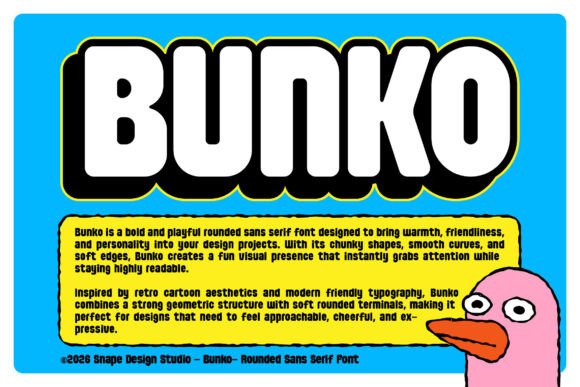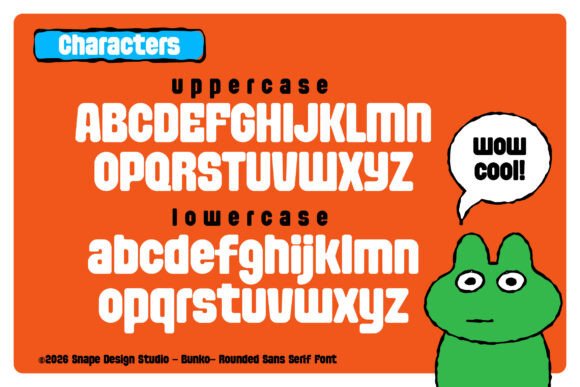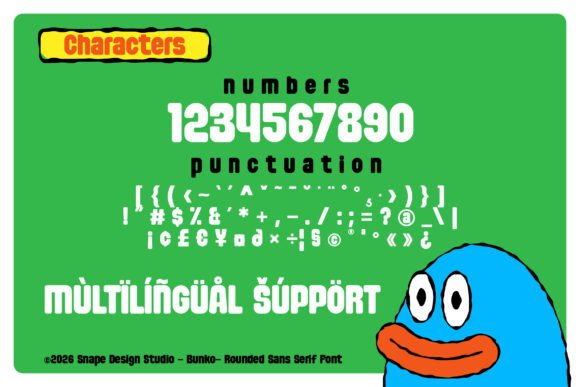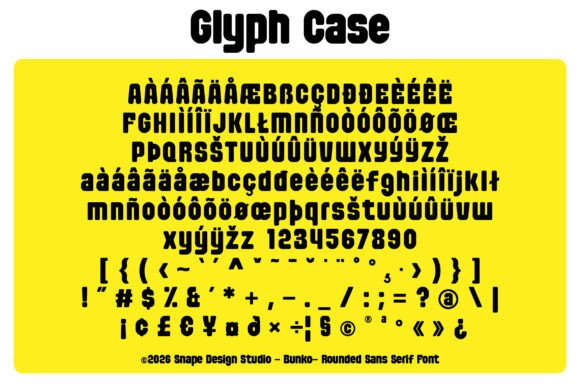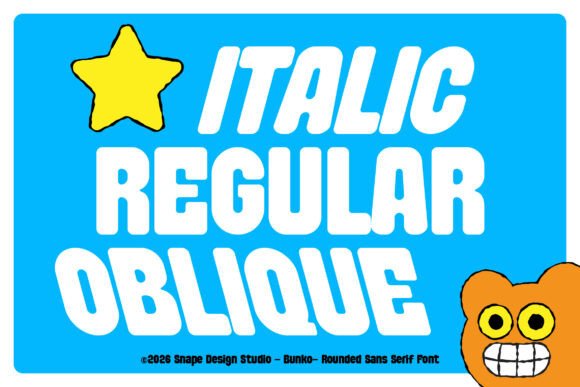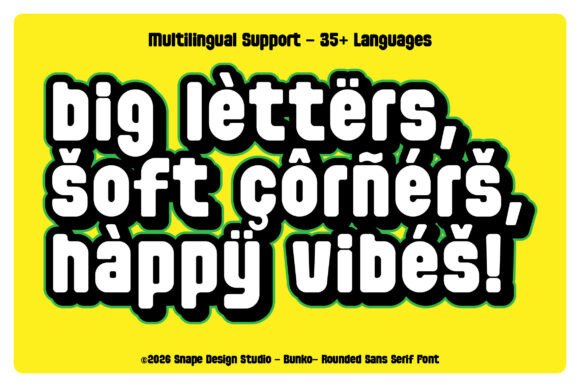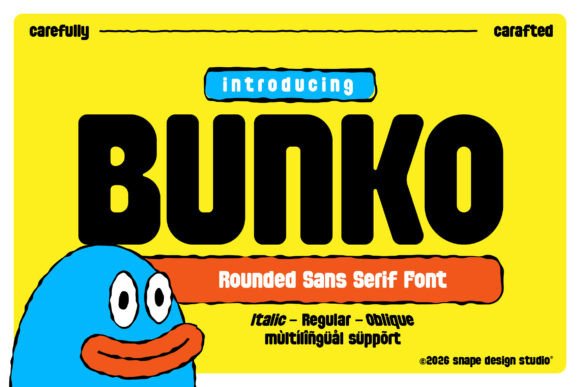
Bunko Font: The Ultimate Bold and Playful Rounded Sans Serif Font
Are you looking for a font that can bring warmth, friendliness, and personality into your design projects? Look no further than Bunko, a bold and playful rounded sans serif font designed to make your designs stand out. With its chunky shapes, smooth curves, and soft edges, Bunko creates a fun visual presence that instantly grabs attention while staying highly readable.
Inspiration from Retro Cartoon Aesthetics and Modern Friendly Typography
Bunko’s design is inspired by retro cartoon aesthetics and modern friendly typography. The font combines a strong geometric structure with soft rounded terminals, making it perfect for designs that need to feel approachable, cheerful, and expressive. Whether you’re creating eye-catching headlines or playful branding, Bunko delivers a bold yet charming typographic voice.
Why Choose Bunko?
Bunko is designed for designers who want a rounded sans serif display font that feels lively and memorable. The thick letterforms provide strong visual impact, while the rounded shapes give it a soft and welcoming personality. Here are some reasons why you should choose Bunko for your design projects:
• Unique and Playful Design: Bunko’s chunky shapes and smooth curves create a fun and playful visual presence that sets it apart from other fonts.
• Highly Readable: Despite its bold design, Bunko remains highly readable, making it perfect for use in headlines, titles, and other display text.
• Versatile: Bunko works beautifully for a wide range of design projects, from playful branding and advertising to packaging and web design.
• Easy to Use: Bunko is a straightforward font to use, and its simple yet effective design makes it easy to pair with other fonts.
Perfect For
Bunko works great for a variety of design projects, including:
• Playful Branding: Bunko’s bold and playful design makes it perfect for creating fun and memorable brand identities.
• Eye-Catching Headlines: Bunko’s chunky shapes and smooth curves make it ideal for creating attention-grabbing headlines and titles.
• Advertising and Marketing: Bunko’s unique design and high readability make it perfect for use in advertising and marketing materials.
• Packaging Design: Bunko’s playful and fun design makes it great for use in packaging design, particularly for products aimed at a younger audience.
• Web Design: Bunko works beautifully for web design, particularly for websites that require a fun and playful typographic style.
Design Elements
Bunko’s design elements make it a standout font. Here are some of the key features that make Bunko so unique:
• Chunky Shapes: Bunko’s chunky shapes give it a bold and playful appearance.
• Smooth Curves: Bunko’s smooth curves add a touch of elegance and sophistication to its design.
• Soft Edges: Bunko’s soft edges give it a friendly and approachable feel.
• Rounded Terminals: Bunko’s rounded terminals add a touch of warmth and personality to its design.
In conclusion, Bunko is a bold and playful rounded sans serif font that is perfect for designers who want to bring warmth, friendliness, and personality into their design projects. With its unique design elements, high readability, and versatility, Bunko is an excellent choice for a wide range of design projects. Whether you’re creating playful branding, eye-catching headlines, or fun packaging design, Bunko delivers a bold yet charming typographic voice that is sure to make your designs stand out.